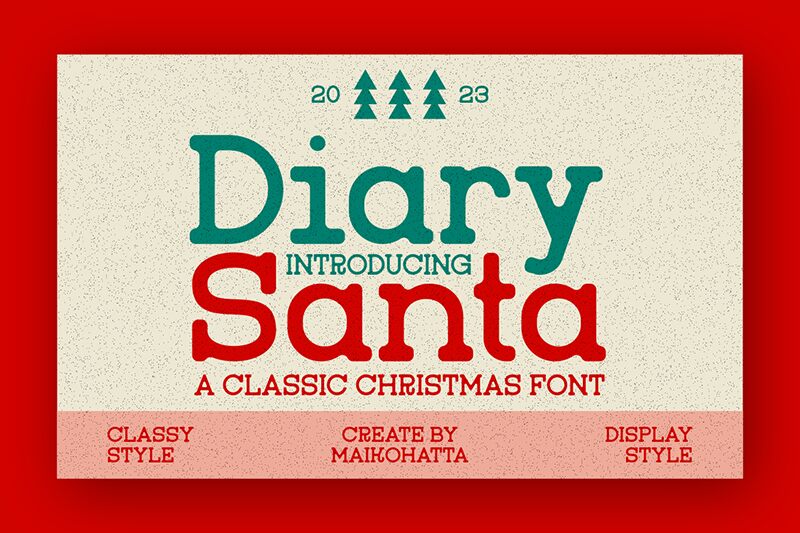
Diary Santa font family is an invitation to a magical winter setting accompanied by warmth and nostalgic festive feelings. This free font family is designed by Gilang Ternadho to style your projects with a classic and elegant touch. The style of Diary Santa is a relaxation-inducing lovely one, and it can be described as a holiday-themed, vintage-like, and friendly font family. Use it in your book titles, brand names, or posters, and enjoy the end result.
In addition to the mentioned use cases, this font family can be employed in greeting cards, packaging, magazine covers, invitations, and photography packaging. It will also look good on social media ads, websites, emails, and mobile apps or any other UI design project.